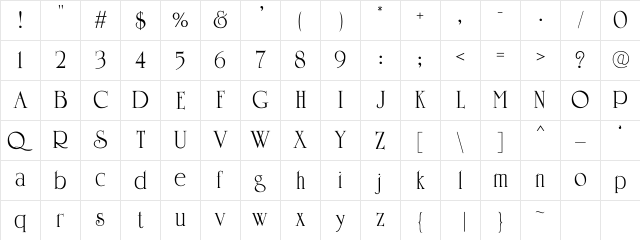
UniversRoman2 Regular
Design Context for UniversRoman2
UniversRoman2 is a composed and adaptable typeface that performs quietly and consistently across a wide range of design contexts.